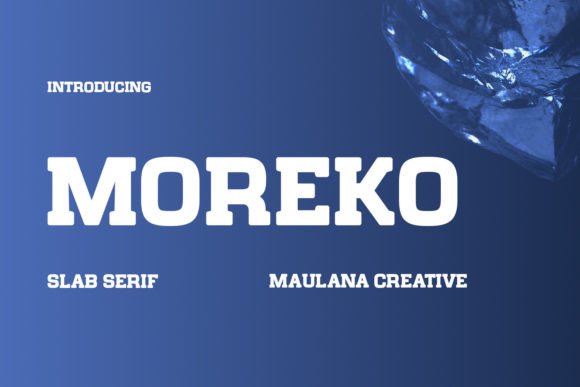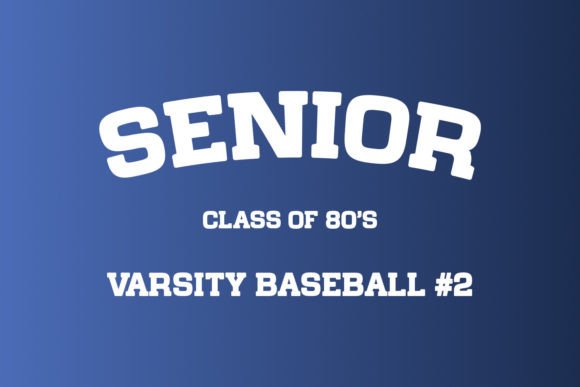
About Moreko Font
Moreko is a retro-inspired slab serif font that exudes timeless elegance and charm. Its bold, sturdy letterforms and distinct serifs evoke a nostalgic vibe reminiscent of classic typography from the mid-20th century. Perfect for headlines, logos, and vintage-themed designs, Moreko adds a touch of sophistication and a dash of nostalgia to any project, making it a true typographic gem.